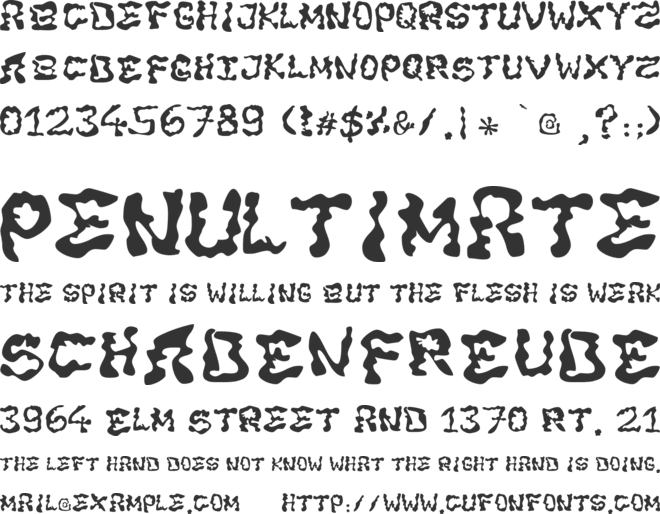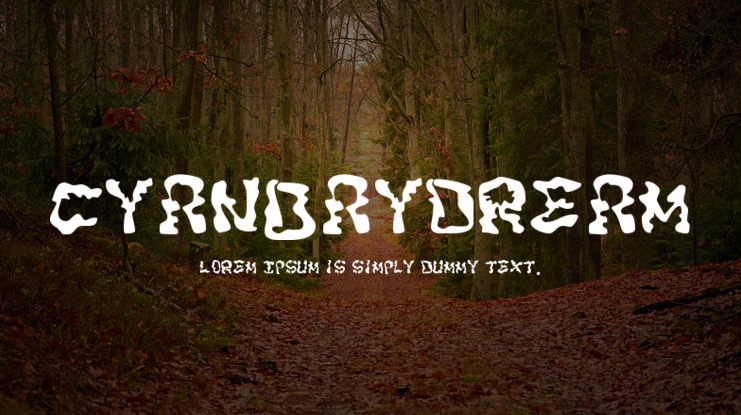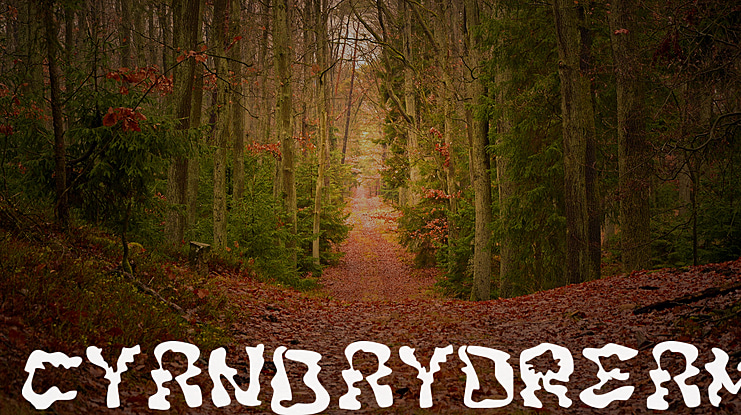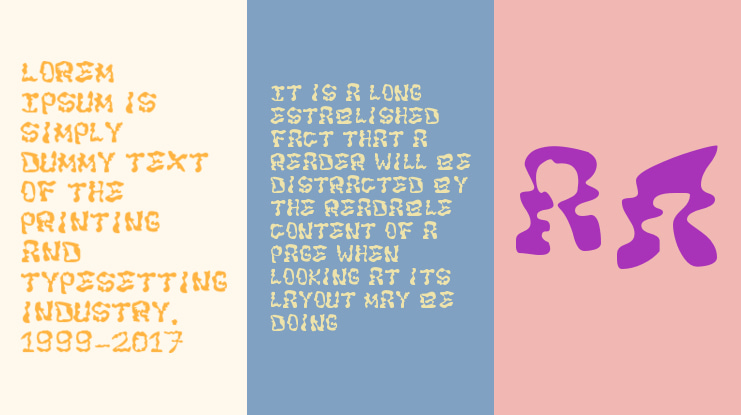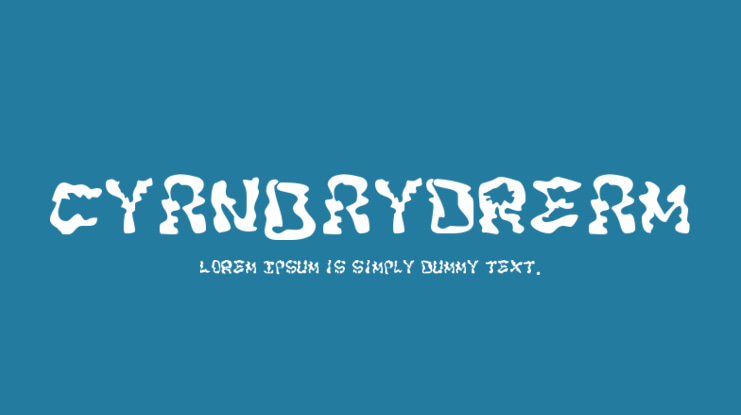
CyanDaydream Font
Here in this typeface '' CyanDayDream '' I did add lots of soft curves into letters ... at one point what soft easy read mission failed a little. Like I was paying bit more attention to my read. So I thought it would be perfect for TELEPATHIC speech bubbles. Well that was my take on the font. Sky is the limit, please do have fun.